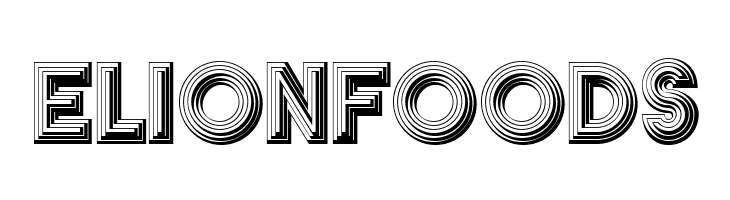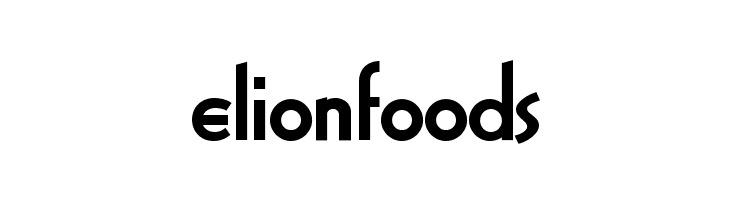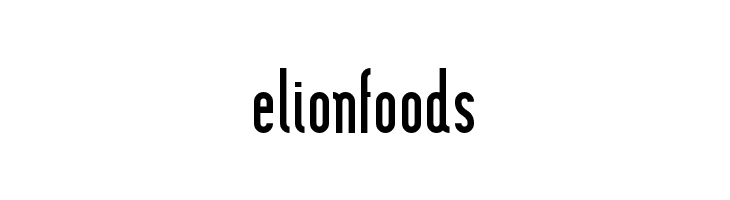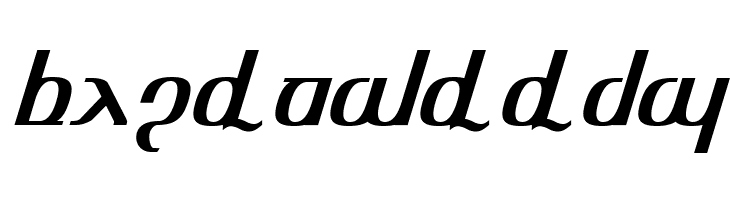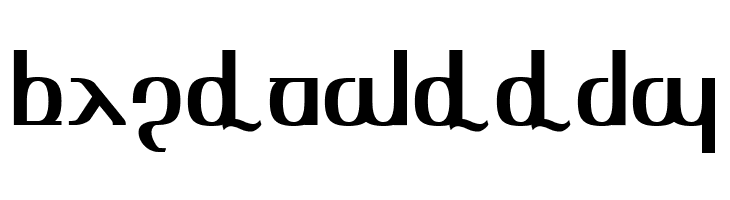
A bold, traditional blackletter font with sharp, angular lines and dramatic strokes.
A bold, decorative font with a stacked, three-dimensional outline effect.
A geometric, modern font with clean lines and smooth curves.
A modern, angular font with a futuristic design.
A bold, futuristic font with sharp, angular edges and a geometric structure.
An elegant cursive font with flowing, interconnected letterforms and ornate details.
A bold, modern sans-serif font with a slightly condensed style.
A whimsical, medieval-inspired decorative font with unique curves and flourishes.
A decorative script with a fantasy-inspired, flowing design and diagonal slant.
An elegant, calligraphic font inspired by the Tengwar script, perfect for fantasy-themed projects.